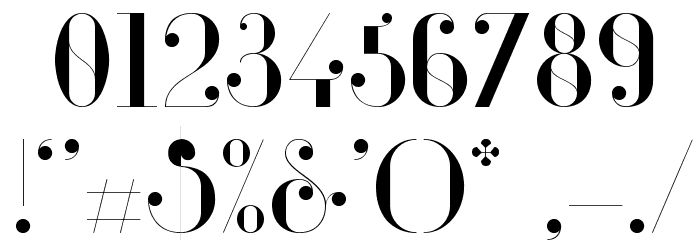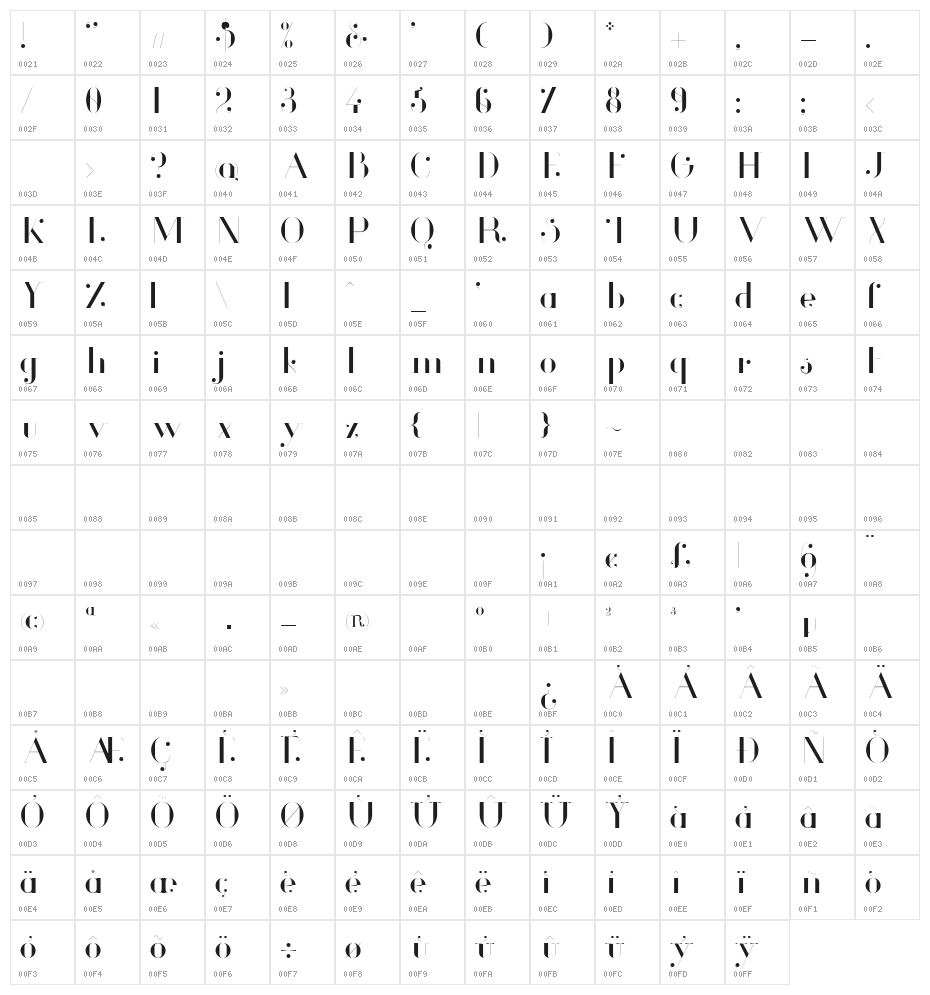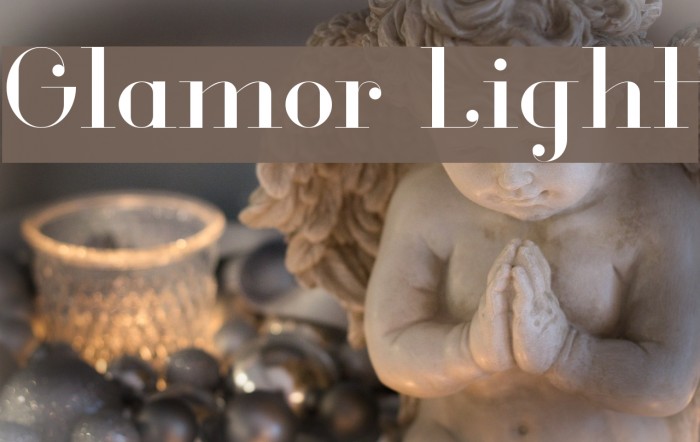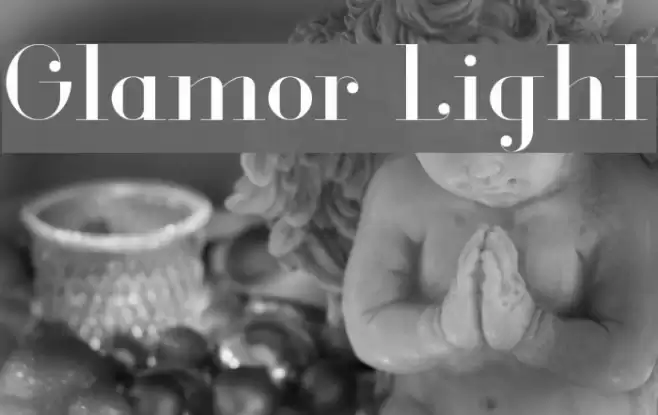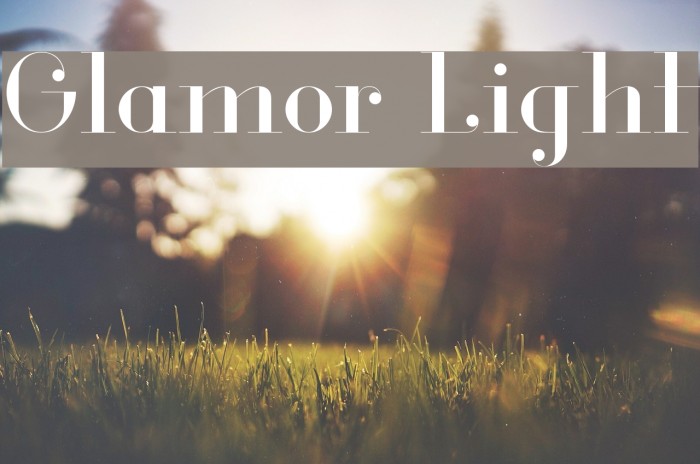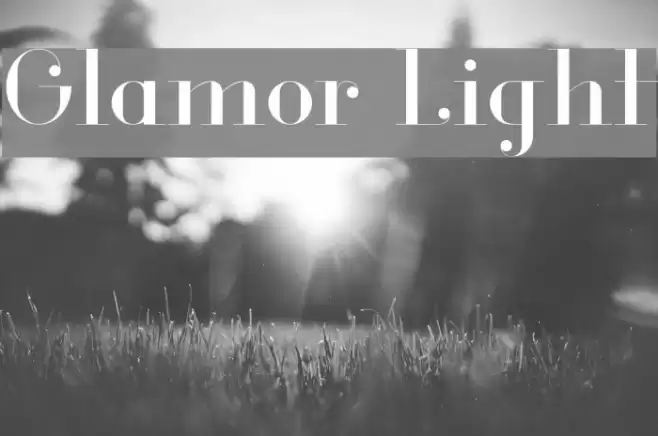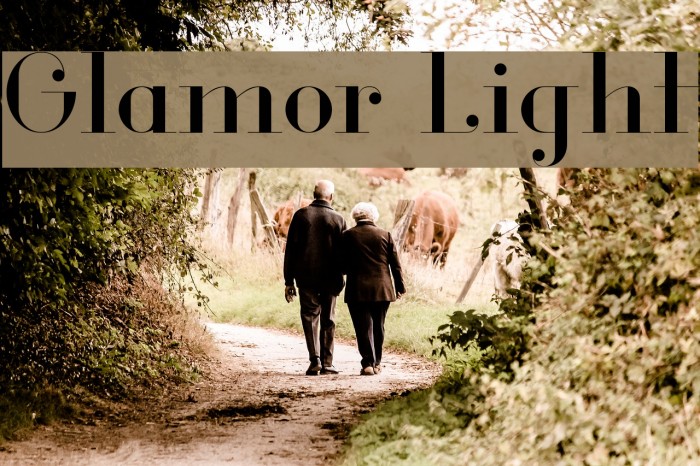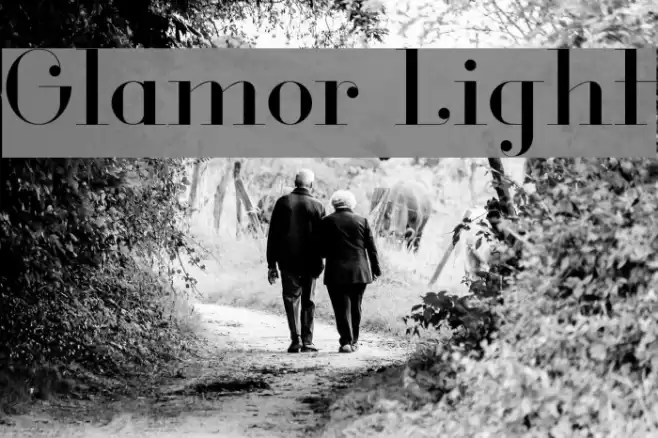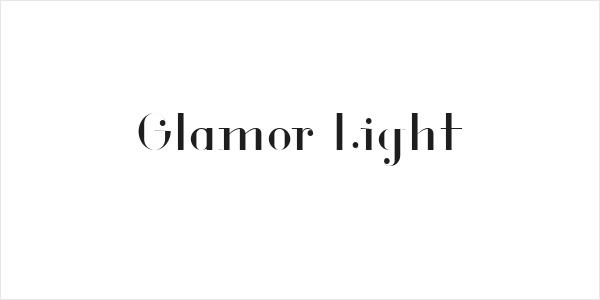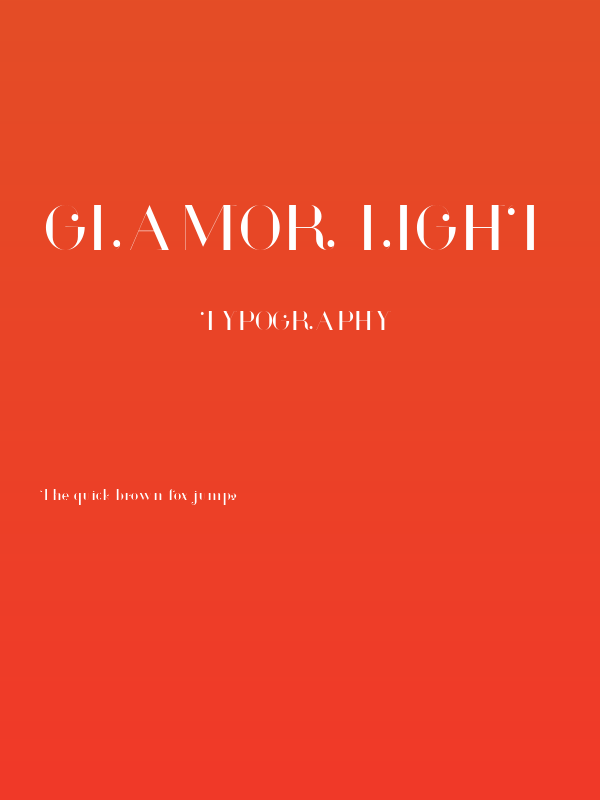
Glamor Light Font
Glamor Light Description
This font exhibits a striking blend of elegance and modernity, characterized by its high contrast between thick and thin strokes. The uppercase letters are tall and slender, with a refined, sophisticated appearance. The lowercase letters maintain a consistent style, offering a harmonious balance with the uppercase. The numerals are distinct and stylish, featuring unique curves and lines that enhance their visual appeal. Special characters are crafted with the same attention to detail, ensuring a cohesive look across all elements. This font's design is both artistic and functional, making it suitable for a variety of creative applications.
| Use Case | Headlines, Logos, Editorial design |
| Proposed Projects | Ideal for luxury branding, fashion magazines, high-end product packaging, and elegant invitations. |